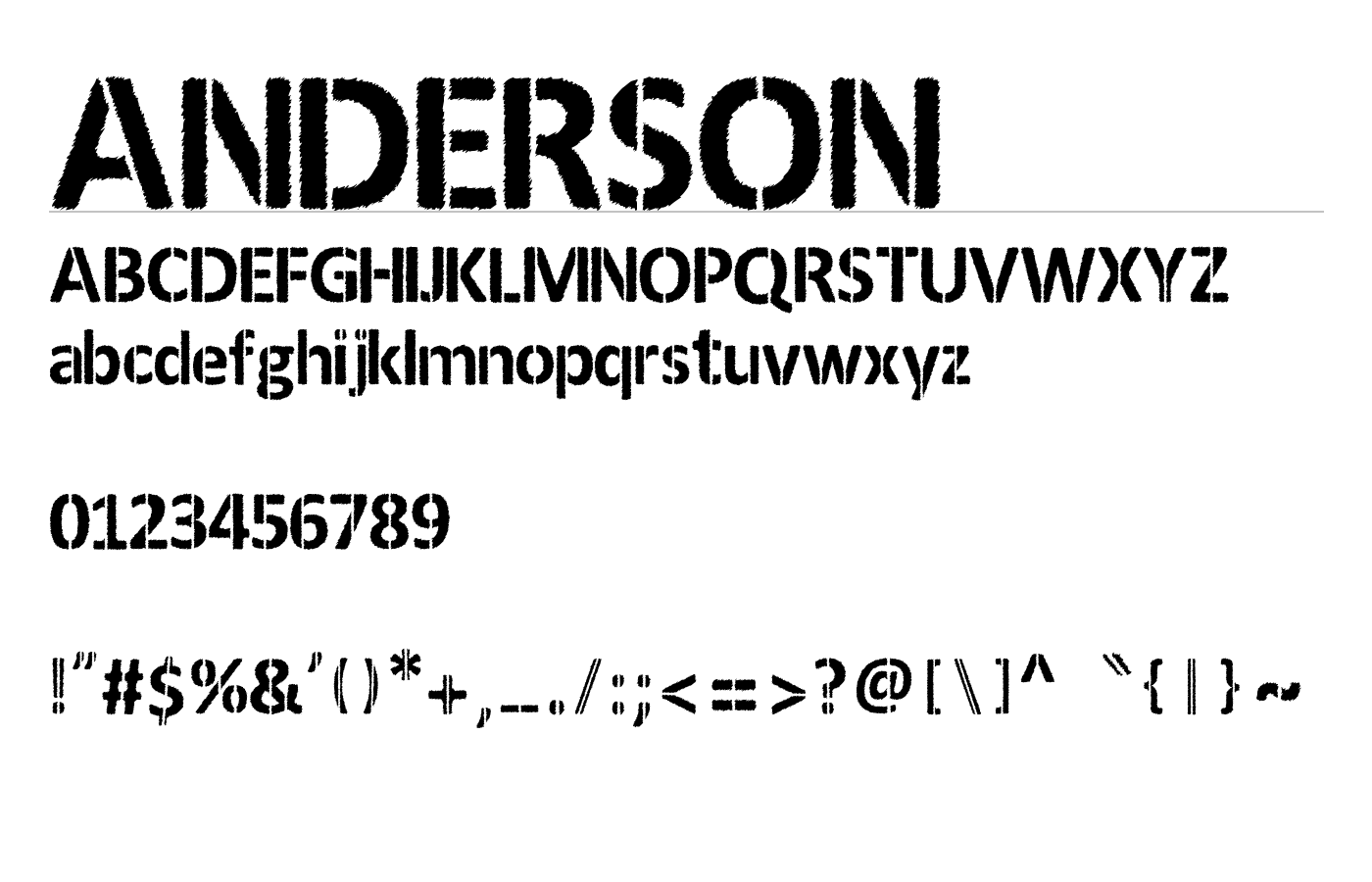
ANDERSON is a bold, stencil-style sans serif font with a slightly distressed texture, giving it a rugged and industrial feel. Its strong, geometric letterforms combined with the stencil breaks make it ideal for impactful headlines, branding, and designs needing a tough, utilitarian aesthetic. This font works well for posters, packaging, and logo design where readability and character are equally important.
ANDERSON Font
About ANDERSON Font